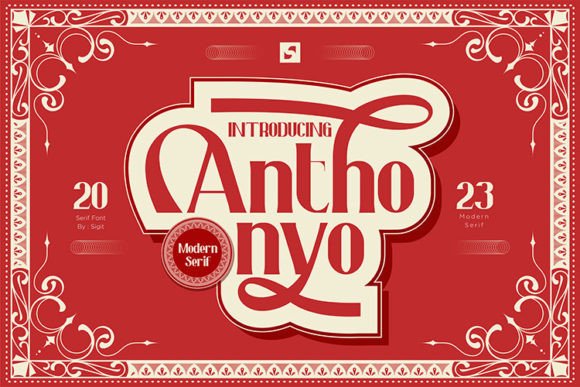
Introducing Anthonyo Font - An Ode to Classic Elegance and Vintage Charm
Anthonyo Font, a brainchild of sigit-ap, isn't just a font; it's a journey through time, a revival of timeless elegance and vintage charm. Its serif strokes, reminiscent of a bygone era, exude a sense of nostalgia and sophistication that's sure to captivate your readers.
Crafted with meticulous attention to detail, Anthonyo Font boasts intricate curves and delicate flourishes that add a touch of timeless beauty to your projects. Whether you're designing book headings, crafting logos, creating posters, or simply adding a touch of class to your digital creations, Anthonyo Font is the perfect choice.
Not only is this font aesthetically pleasing, but it's also highly functional. Its legibility at any size ensures that your message will be conveyed clearly and effectively, even when used in small print or on large billboards. The PUA encoding makes accessing all glyphs and swashes effortless, giving you the creative freedom to explore endless design possibilities.
With Anthonyo Font, you'll unlock a world of creative opportunities. Imagine your book headings adorned with the refined elegance of this classic serif font, drawing your readers into a captivating narrative. Envision your logos radiating an aura of timeless sophistication, leaving a lasting impression on your audience. Unleash your creativity and let Anthonyo Font elevate your designs to new heights of excellence.